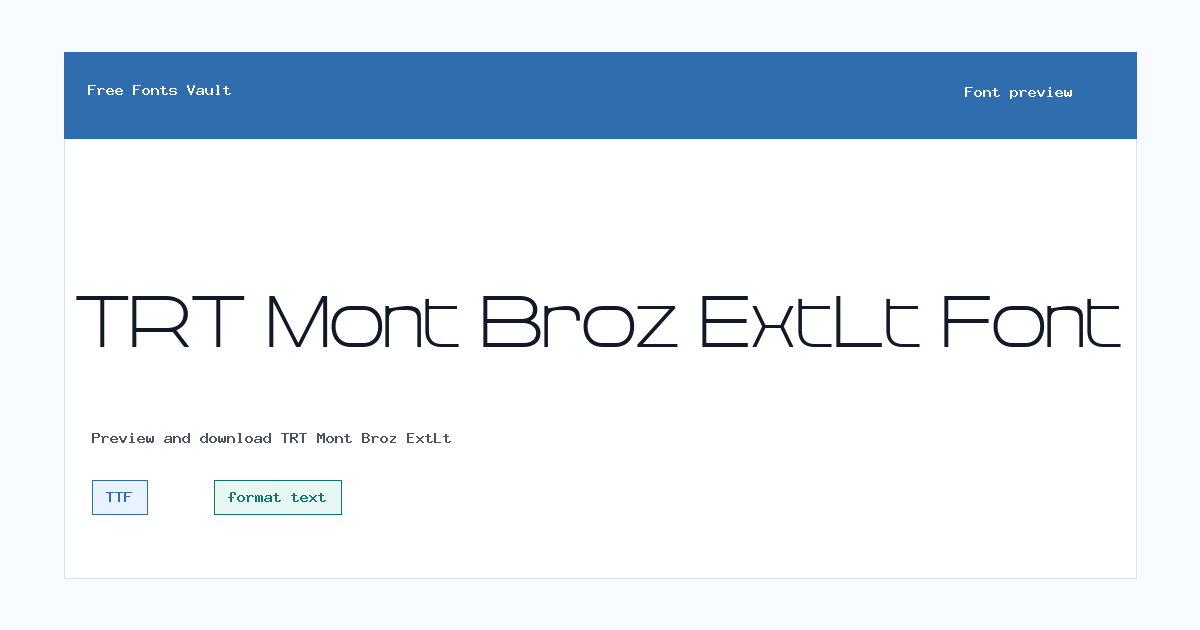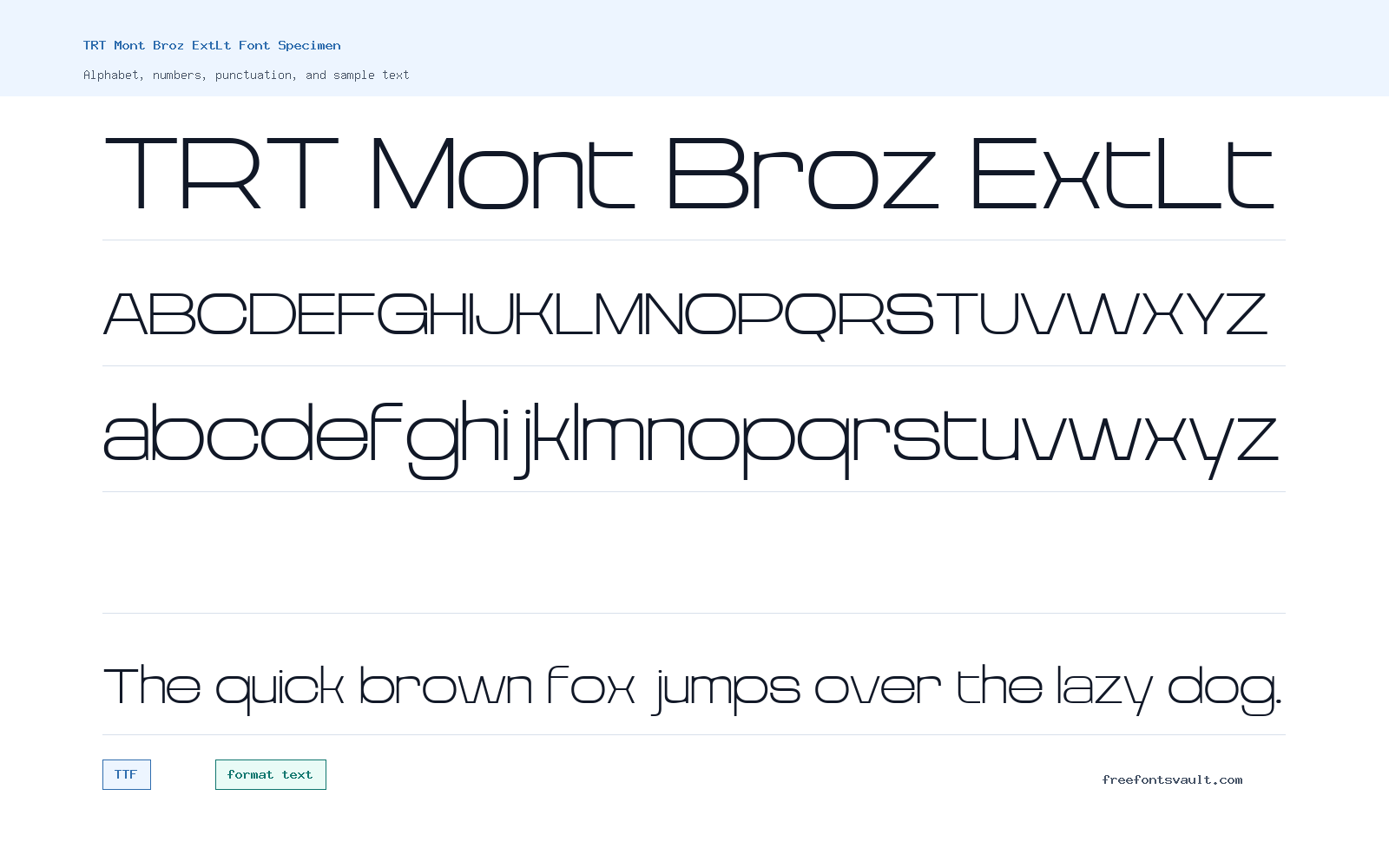
TRT Mont Broz ExtLt
- Designer Abel Aurelia Thalitha of Truetype
- Foundry Truetype
TRT Mont Broz ExtLt is the ExtraLight demo style from the TRT Mont Broz family, a wide geometric sans display font made for clean, oversized typography.
TRT Mont Broz ExtLt has a broad, modern sans-serif structure with very thin strokes. The ExtraLight weight gives it a quiet, spacious look, so it works best when the letters have room to breathe. It is better suited to large display settings than small text, where the fine lines may become hard to read.
The ExtraLight weight is the most delicate option in this demo set. It should be treated as a large-display style, not a practical reading font. It can look elegant in oversized titles, luxury-style mockups, gallery posters, and clean landing-page concepts, but it needs generous spacing and simple backgrounds.
Because ExtraLight strokes are very thin, check this preview at the same size and background you plan to use. It works best for spacious personal-use concepts, refined mockups, and elegant display lines where the letters can breathe. If the words need stronger contrast or must sit at a smaller size, compare the Light or Regular TRT Mont Broz styles before finalizing the design.
- Wide geometric sans display design with a limited basic glyph set
- Large headlines, posters, and title layouts
- Personal design mockups, social graphics, and display typography tests
Keep this ExtraLight style large and simple. Avoid long paragraphs, small captions, and low-contrast color combinations. Test the exact words you plan to use, because the demo version may not include every character needed for finished work. Avoid small UI labels and dense paragraphs; this weight is meant to create atmosphere at large sizes. If readability drops, move up to the Light or Regular style rather than forcing the ExtraLight cut with tighter spacing or heavier effects.
What kind of font is TRT Mont Broz ExtLt?
It is a wide geometric sans display font in an ExtraLight weight.
Can I use it for body text?
It is not the best choice for body text. The thin strokes and display style are easier to read in large sizes.